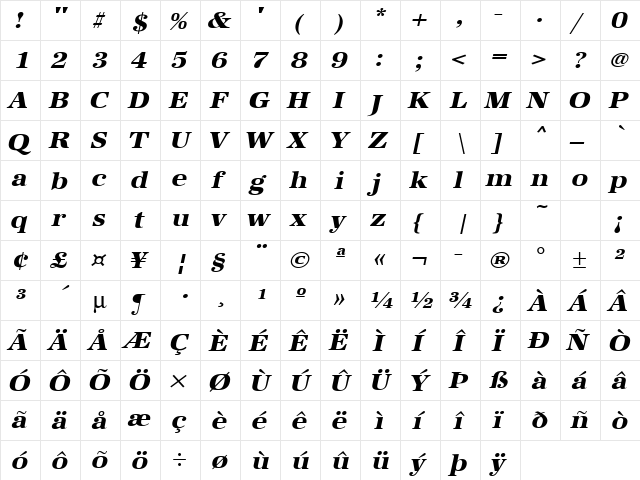
URWAntiquaTExtBolExtWid Oblique
Design Context for URWAntiquaTExtBolExtWid Typeface
URWAntiquaTExtBolExtWid is a composed and adaptable typeface that performs quietly and consistently across a wide range of design contexts. The dynamic lean of this cut emphasises speed and emphasis in any layout.
Pro Tip: Try URWAntiquaTExtBolExtWid for annotation and caption copy alongside an upright companion — the contrast in angle creates a dynamic but ordered typographic system.